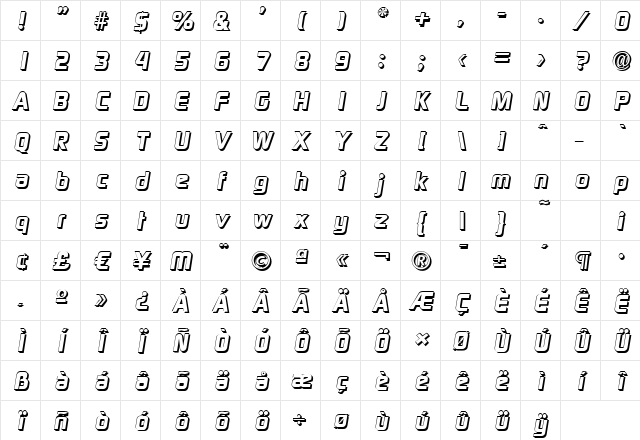
RandyBeckerShadow-ExtraBold is built around its visual character rather than neutral utility - its distinctive forms are designed to make an impression at display sizes. The slanted form adds forward momentum and visual energy. Its bold stroke weight gives it real presence on the page.
Font Pairing: Pair with a clean neutral sans-serif for body copy to let RandyBeckerShadow-ExtraBold's character lead without overwhelming the composition.
Pro Tip: Use RandyBeckerShadow-ExtraBold exclusively at display sizes - it was designed to be seen, not read at length. Let a neutral companion handle body copy.